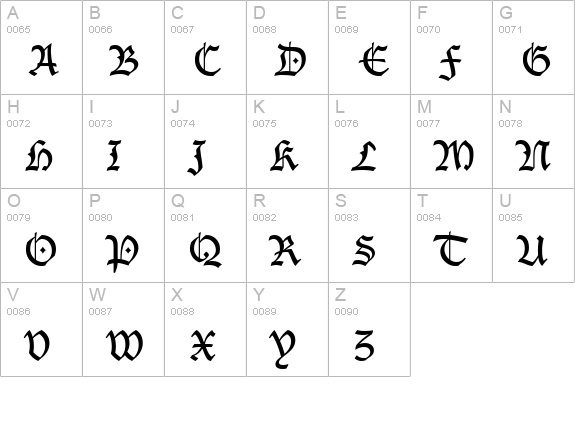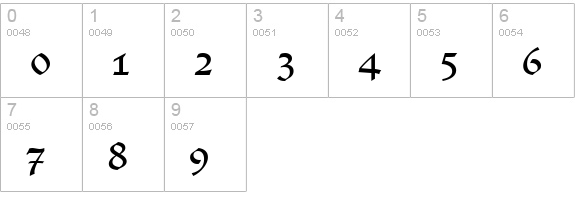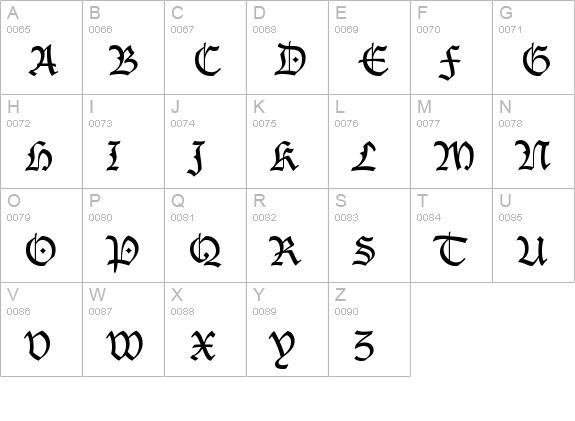
Lucida Blackletter Regular Font Details
Lucida Blackletter Regular is the standard, neutral variant in the Lucida typeface family \xE2\x80\x94 well suited to general body text, paragraphs, and standard typographic work.
Lucida Blackletter Regular font exudes elegance and sophistication with its classic blackletter style. Its intricate details and ornate flourishes give any design a touch of old-world charm and historic flair. The timeless appeal of Lucida Blackletter Regular font makes it a perfect choice for projects that require a touch of sophistication and tradition. Best of all, Lucida Blackletter Regular font is available for free download at FontsMarket.com. Whether you're working on invitations, posters, or branding materials, this font will add a unique and memorable element to your designs. Don't miss out on the opportunity to enhance your projects with the beauty of Lucida Blackletter Regular font - download it today and let your creativity shine!